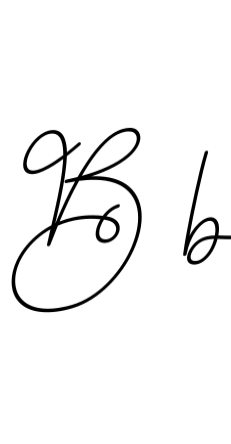
Introducing Bigde Font: The Sweet and Friendly Handwritten Font for Your Creative Projects
In the world of typography, fonts play a crucial role in conveying the tone and personality of a design. Whether you’re working on a wedding invitation, a greeting card, or any other creative project, the right font can make all the difference. If you’re looking for a font that exudes sweetness, friendliness, and a touch of playfulness, look no further than Bigde Font. In this article, we’ll explore the features and benefits of Bigde Font, and why it’s the perfect choice for adding a fun touch to your designs.
What is Bigde Font?
Bigde Font, also known as Bidge, is a beautiful handwritten font that is sure to capture your heart. Its sweet and friendly demeanor makes it an ideal choice for a wide range of design projects, from wedding invitations and cards to posters, flyers, and more. This font is carefully crafted to bring a sense of warmth and approachability to your designs, making it perfect for projects that require a personal touch.
Key Features of Bigde Font
So, what makes Bigde Font so special? Here are some of its key features:
- Sweet and Friendly Design: Bigde Font boasts a sweet and friendly design that is sure to delight. Its handwritten style gives it a personal and approachable feel, making it perfect for designs that require a touch of warmth and personality.
- Cute and Fun: This font is not just sweet and friendly; it’s also incredibly cute and fun. Its playful vibe makes it an excellent choice for designs that require a lighthearted and humorous approach.
- Ideal for Wedding Invitations and Cards: Bigde Font is particularly well-suited for wedding invitations, cards, and other designs that require a touch of elegance and sophistication. Its elegant yet playful design makes it perfect for celebrating life’s special moments.
- Versatile: While Bigde Font excels in wedding invitations and cards, it’s also versatile enough to be used in a wide range of other design projects. Whether you’re working on a poster, flyer, or social media graphic, this font is sure to add a touch of personality to your design.
Benefits of Using Bigde Font
So, why should you choose Bigde Font for your design projects? Here are some of the benefits of using this beautiful font:
- Adds a Personal Touch: Bigde Font’s handwritten design adds a personal touch to your designs, making them feel more approachable and relatable.
- Sets the Right Tone: This font’s sweet and friendly demeanor sets the right tone for a wide range of design projects, from wedding invitations to social media graphics.
- Easy to Read: Despite its playful design, Bigde Font is incredibly easy to read, making it perfect for designs that require a clear and concise message.
- Unique and Creative: Bigde Font’s unique design makes it stand out from more traditional fonts, adding a touch of creativity and originality to your designs.
How to Use Bigde Font in Your Designs
Using Bigde Font in your designs is incredibly easy. Here are some tips to get you started:
- Pair it with Other Fonts: Bigde Font pairs beautifully with other fonts, especially sans-serif fonts. Experiment with different font combinations to create a unique and visually appealing design.
- Use it for Headings and Titles: Bigde Font’s playful design makes it perfect for headings and titles. Use it to add a touch of personality to your design and draw attention to important information.
- Add a Pop of Color: Bigde Font looks stunning in a variety of colors. Experiment with different colors to add a pop of personality to your design.
In conclusion, Bigde Font is a beautiful handwritten font that is sure to add a touch of sweetness and friendliness to your designs. Its cute and fun design makes it perfect for wedding invitations, cards, and other designs that require a personal touch. With its versatility, ease of use, and unique design, Bigde Font is an excellent choice for designers looking to add a touch of personality to their projects. So why not give Bigde Font a try today and see how it can elevate your designs to the next level?
Bigde Font: The Perfect Choice for Your Design Projects